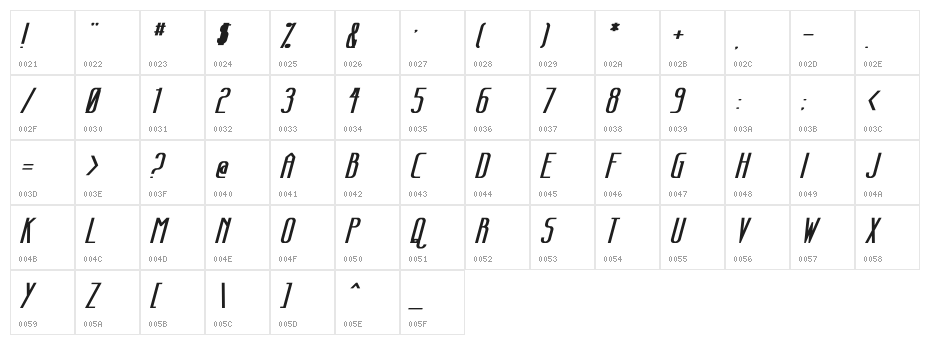
Sanity Bold Italic Font
Sanity Bold Italic Description
This font features a bold and italicized style with a modern and dynamic appearance. The characters are slightly condensed, giving it a sleek and streamlined look. The strokes are consistent in weight, providing a uniform and cohesive feel across all characters. The uppercase letters are tall and commanding, while the lowercase letters maintain a balanced proportion. Numbers and special characters are designed to match the overall aesthetic, ensuring readability and visual appeal. The font's slanted design adds a sense of movement and energy, making it suitable for attention-grabbing headlines and impactful designs.